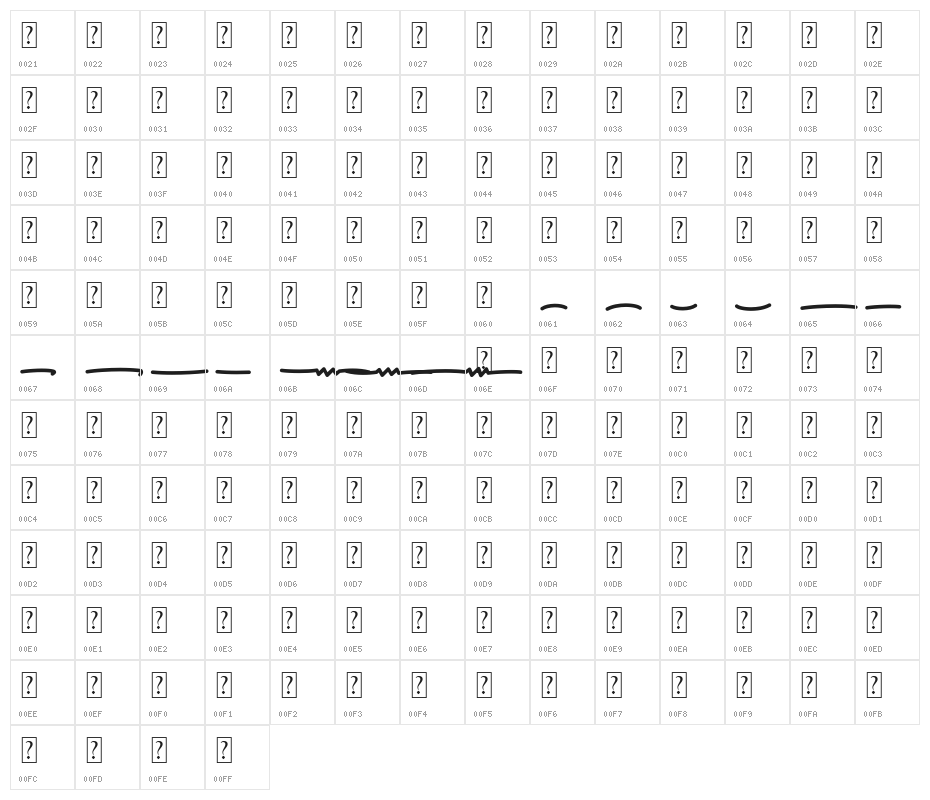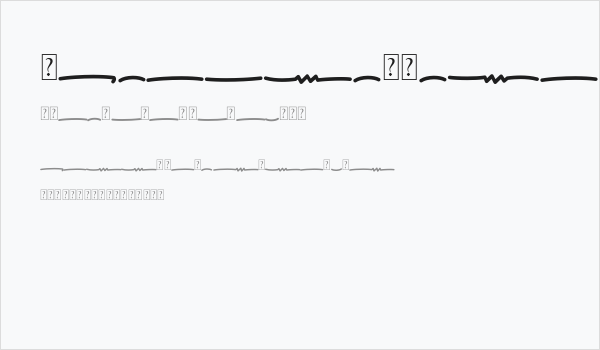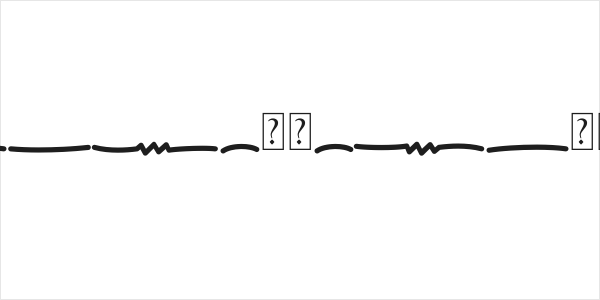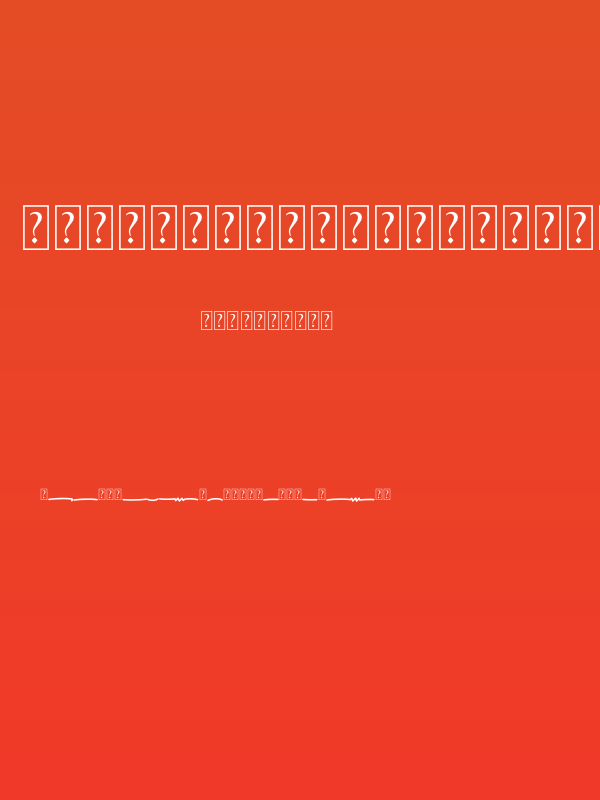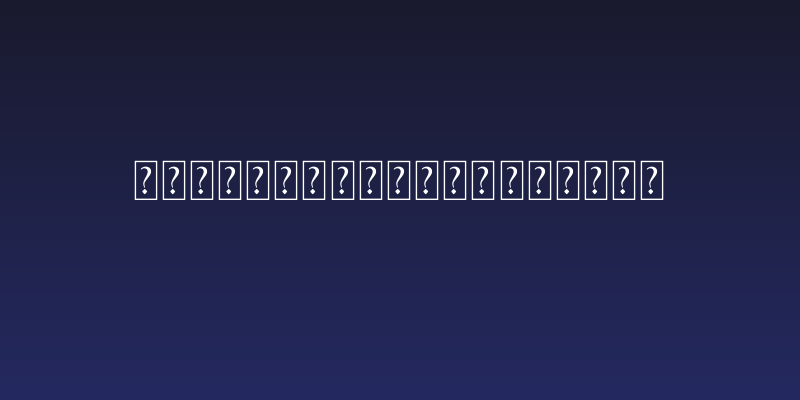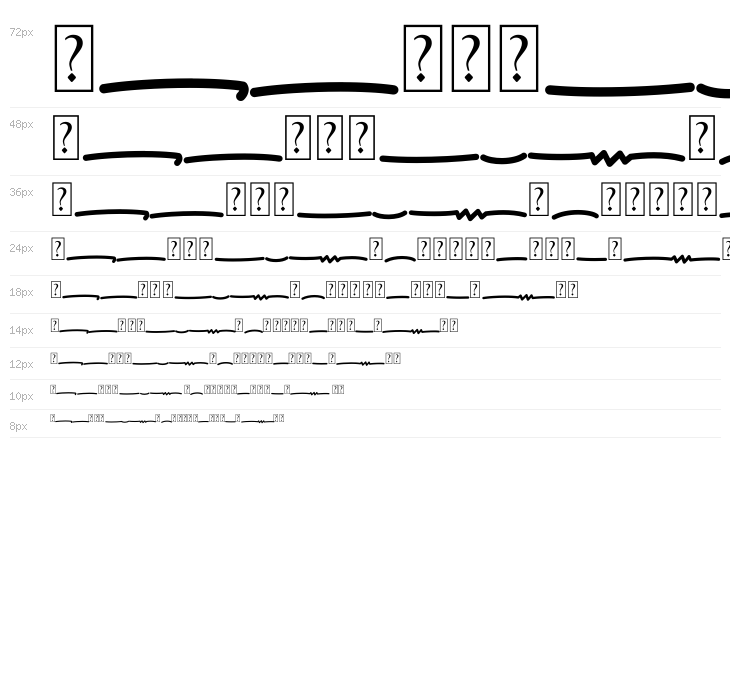
Shaeila Maker Swash Font
Shaeila Maker Swash Description
Decorative font with swash elements, featuring ornate and flowing lines.
| Proposed Projects | Invitations, greeting cards, decorative headings. |